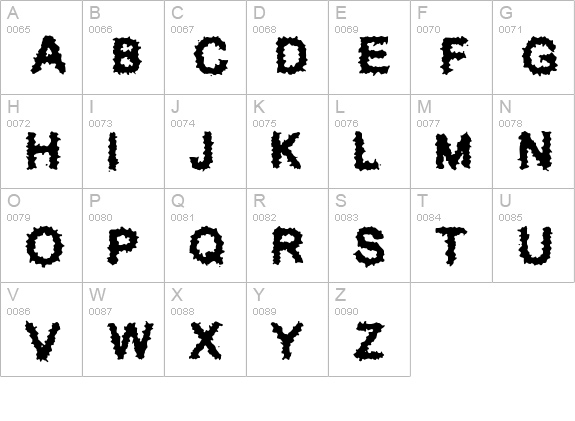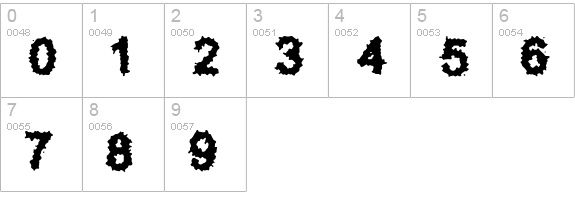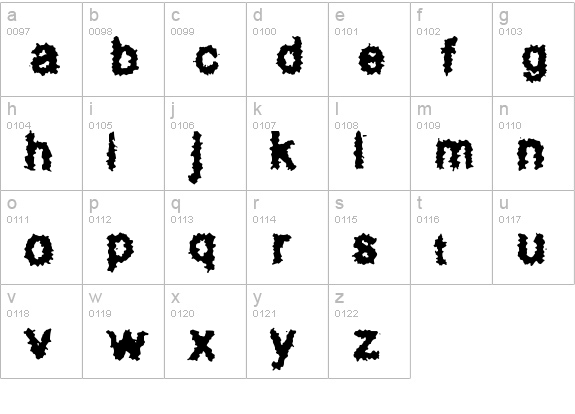
Splatz BRK Font Details
Splatz BRK font is a fun and quirky typeface that brings a playful energy to any design project. With its bold and chunky letters, this font is perfect for creating eye-catching headlines, posters, and more. The unique design of Splatz BRK adds a touch of whimsy and creativity to your text, making it stand out from the crowd. Best of all, this font is available for free download at FontsMarket.com, allowing you to easily add a splash of personality to your designs without breaking the bank. Whether you're working on a branding project, a social media graphic, or anything in between, Splatz BRK is sure to make a bold statement and leave a lasting impression.